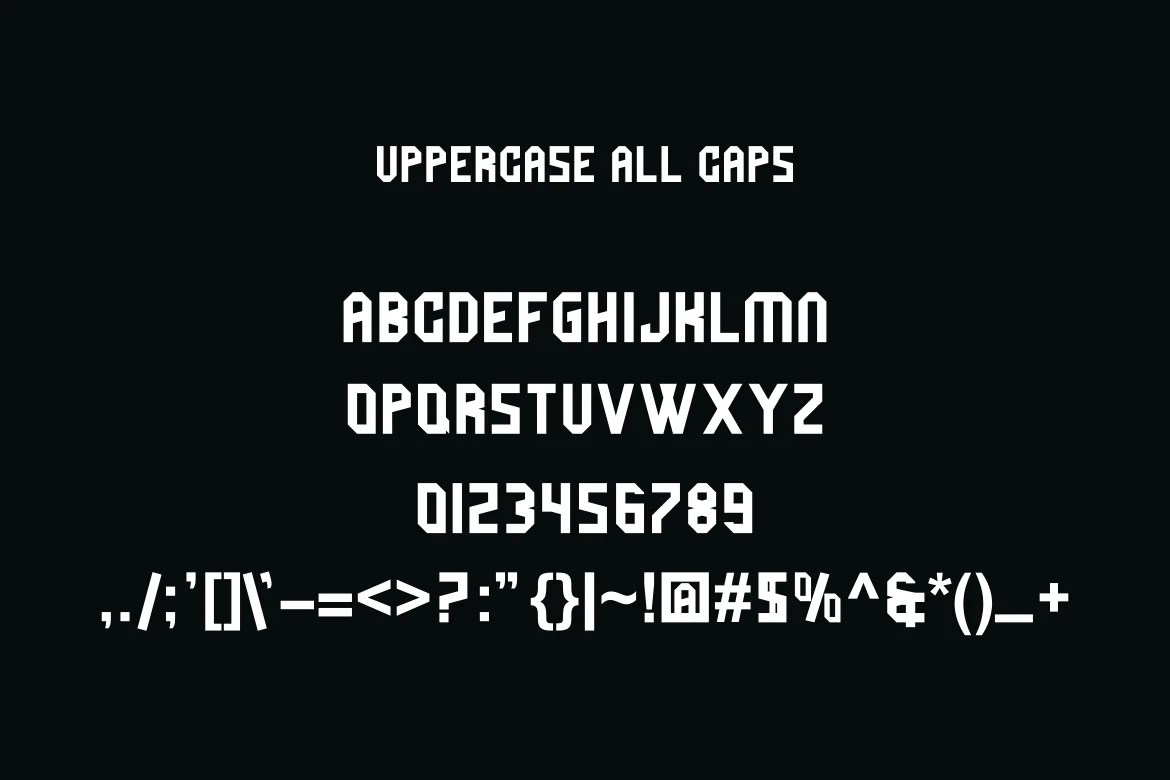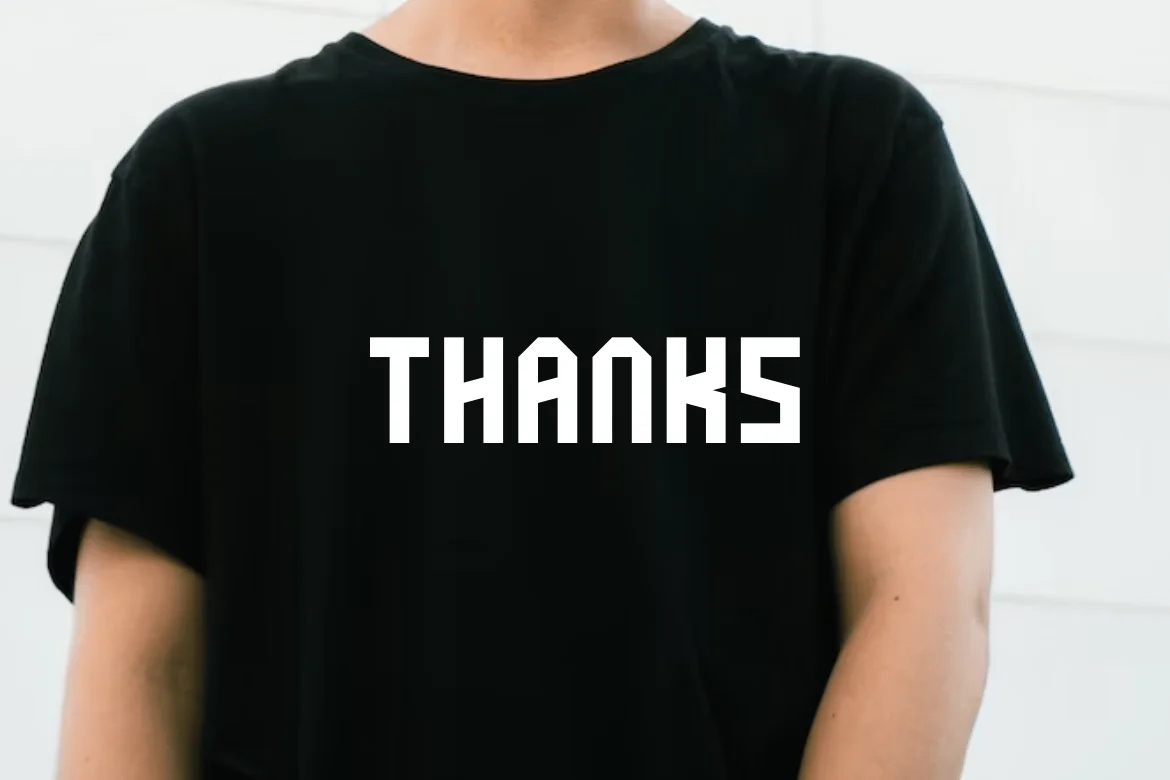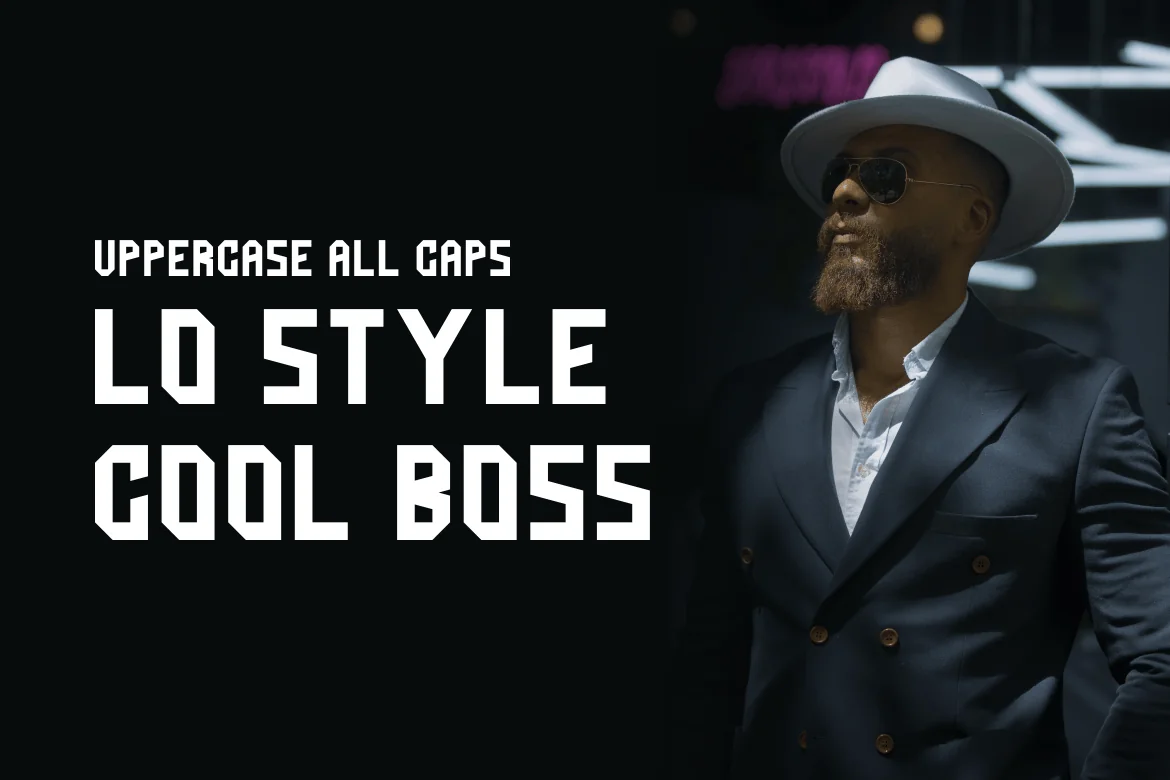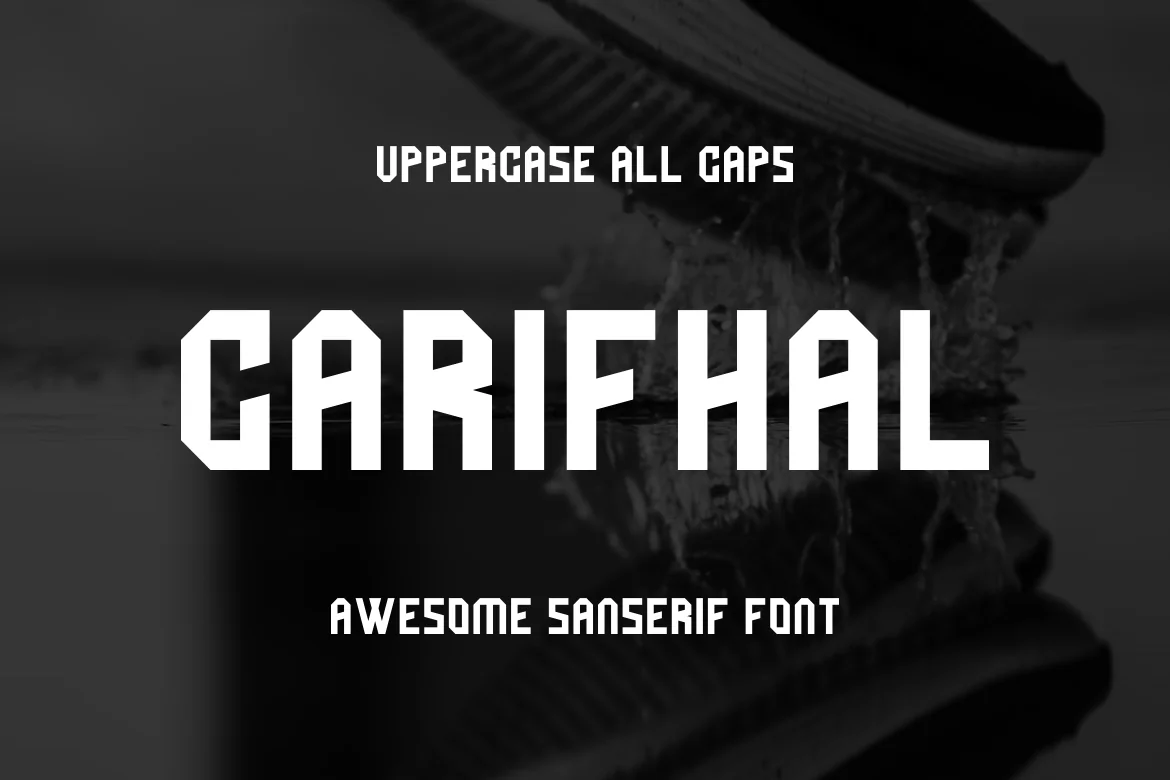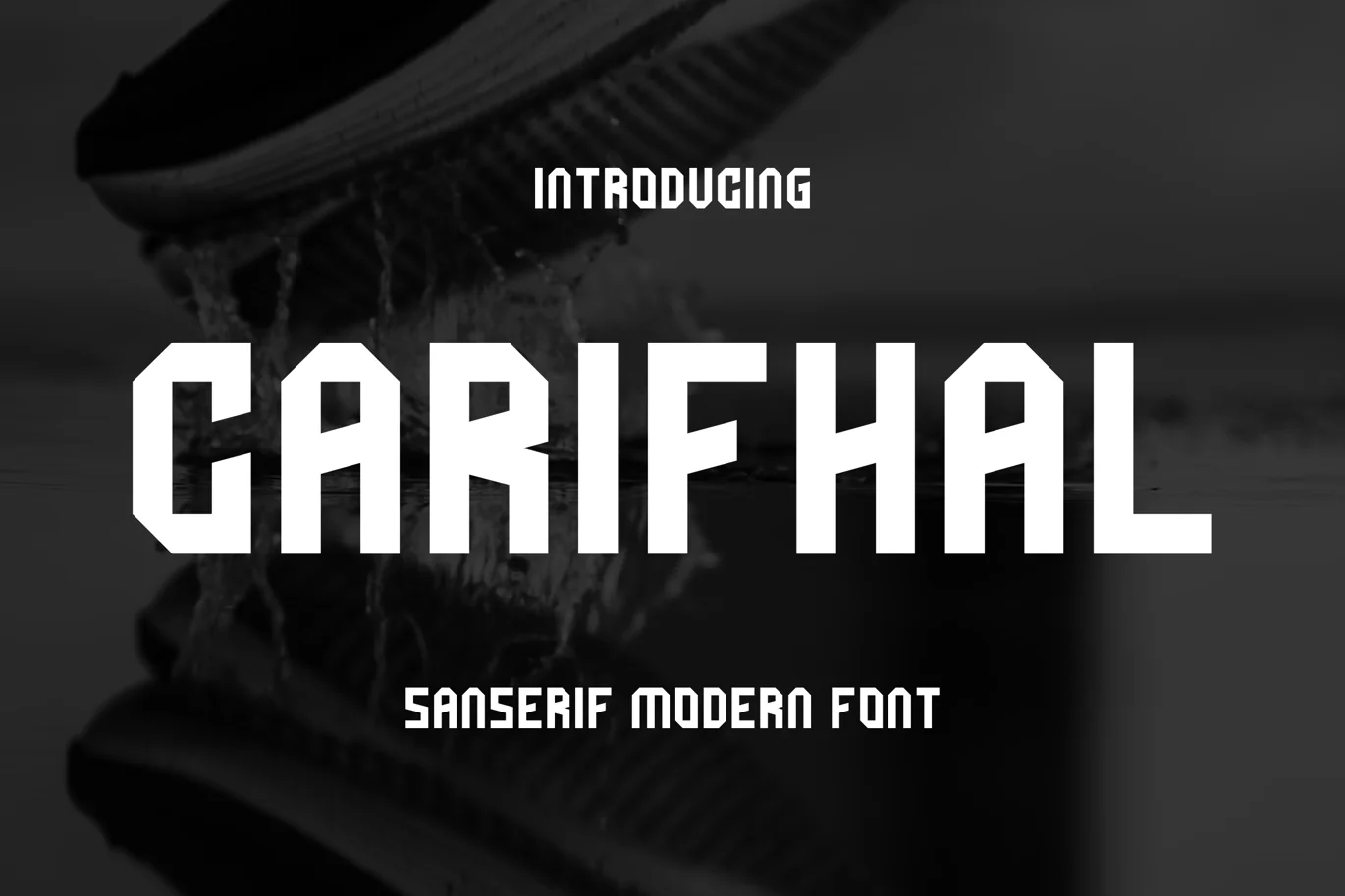
Carifhal – Modern Font
Introducing our new product Carifhal – Modern Font Modern Font
Carifhal – Modern Font – Modern Font is a bold and authentic display font. The font is suitable for any branding project like logo. outstanding in a wide range of contexts.